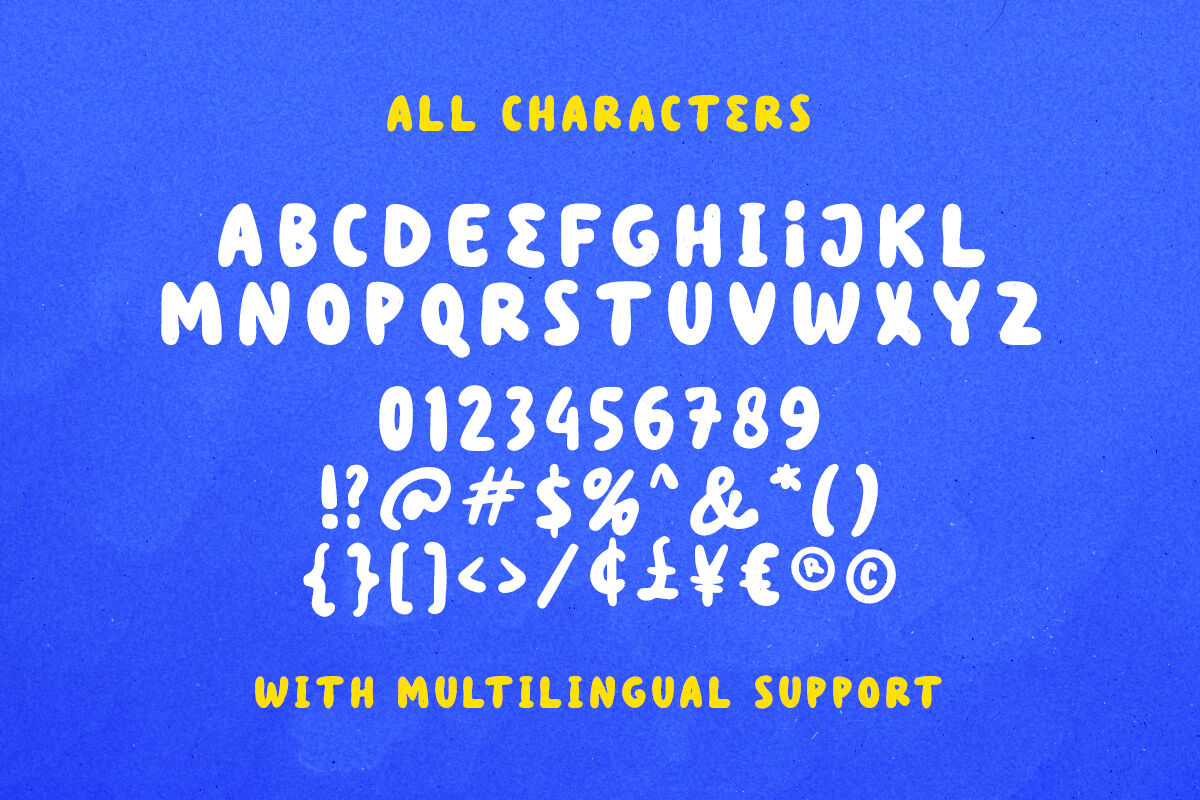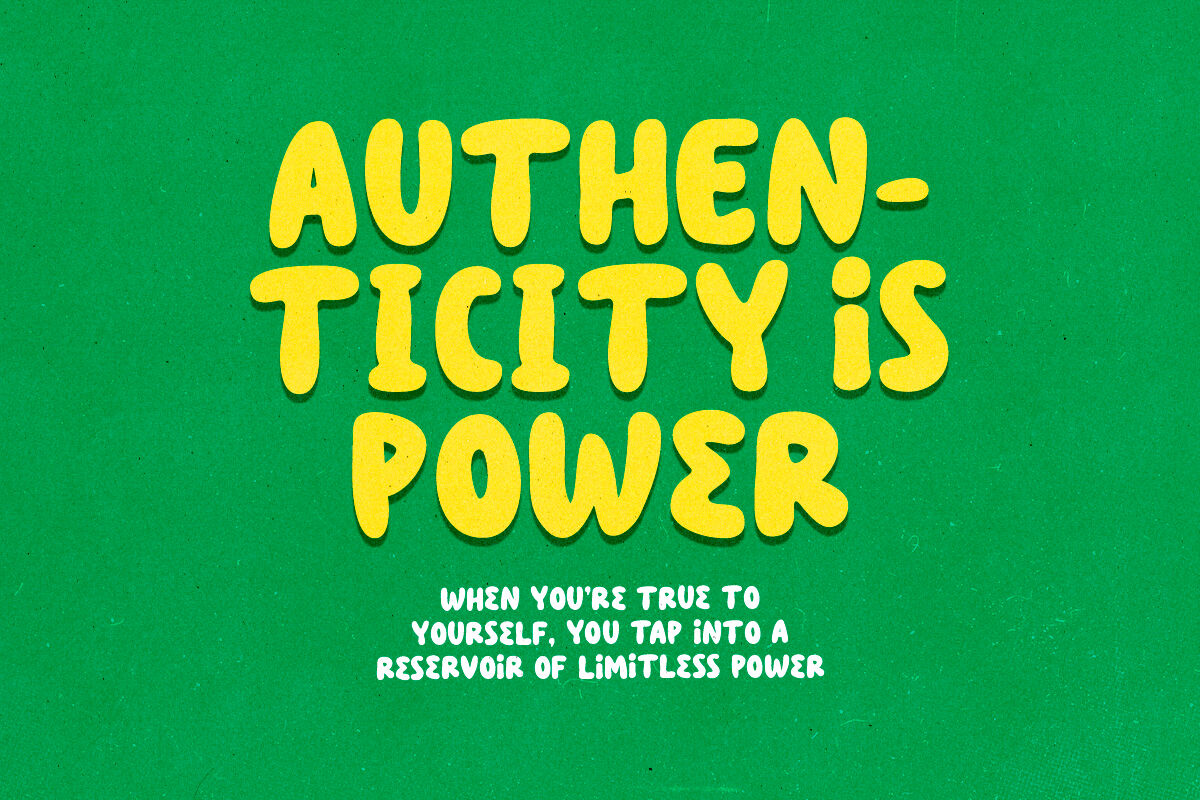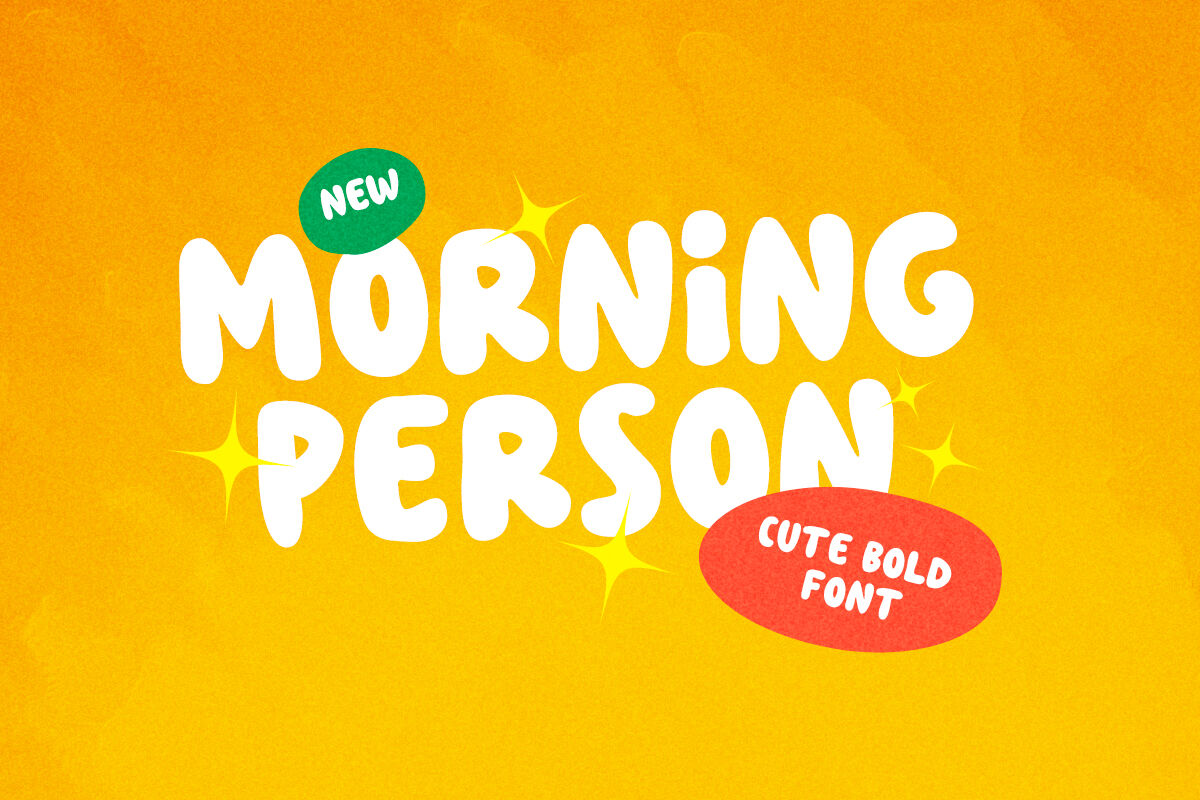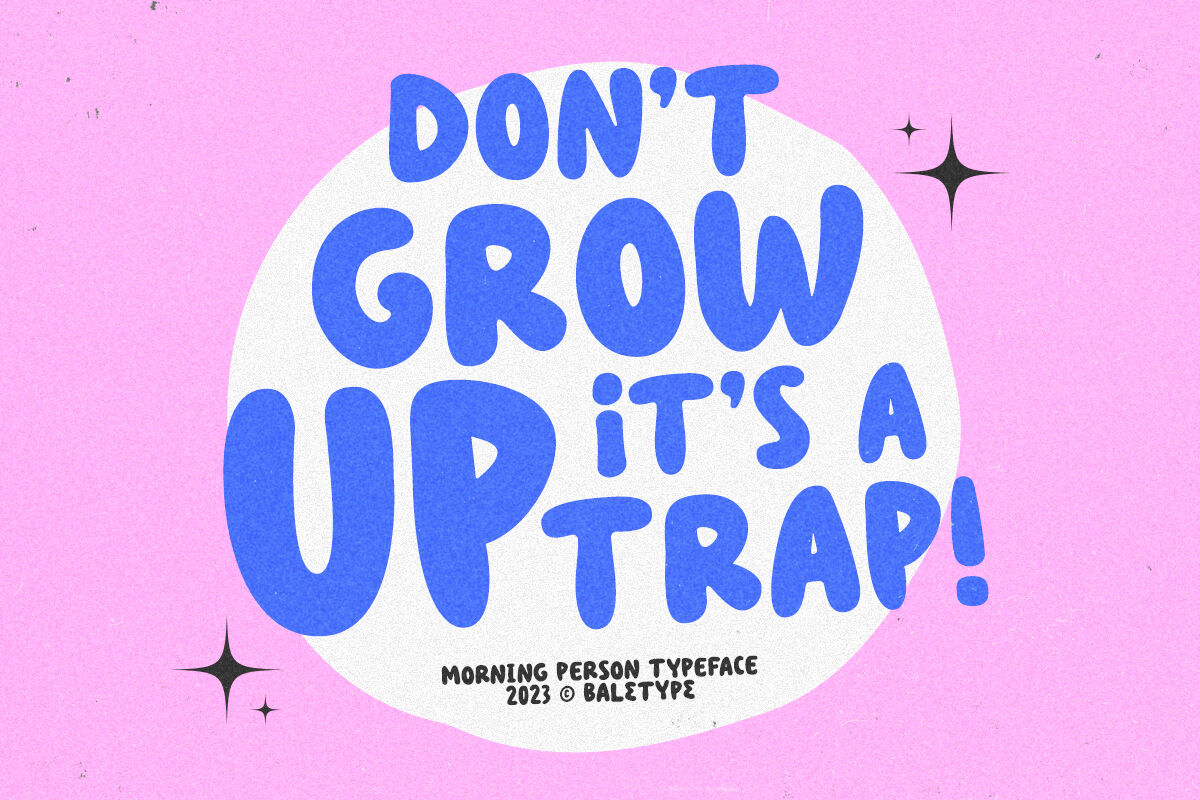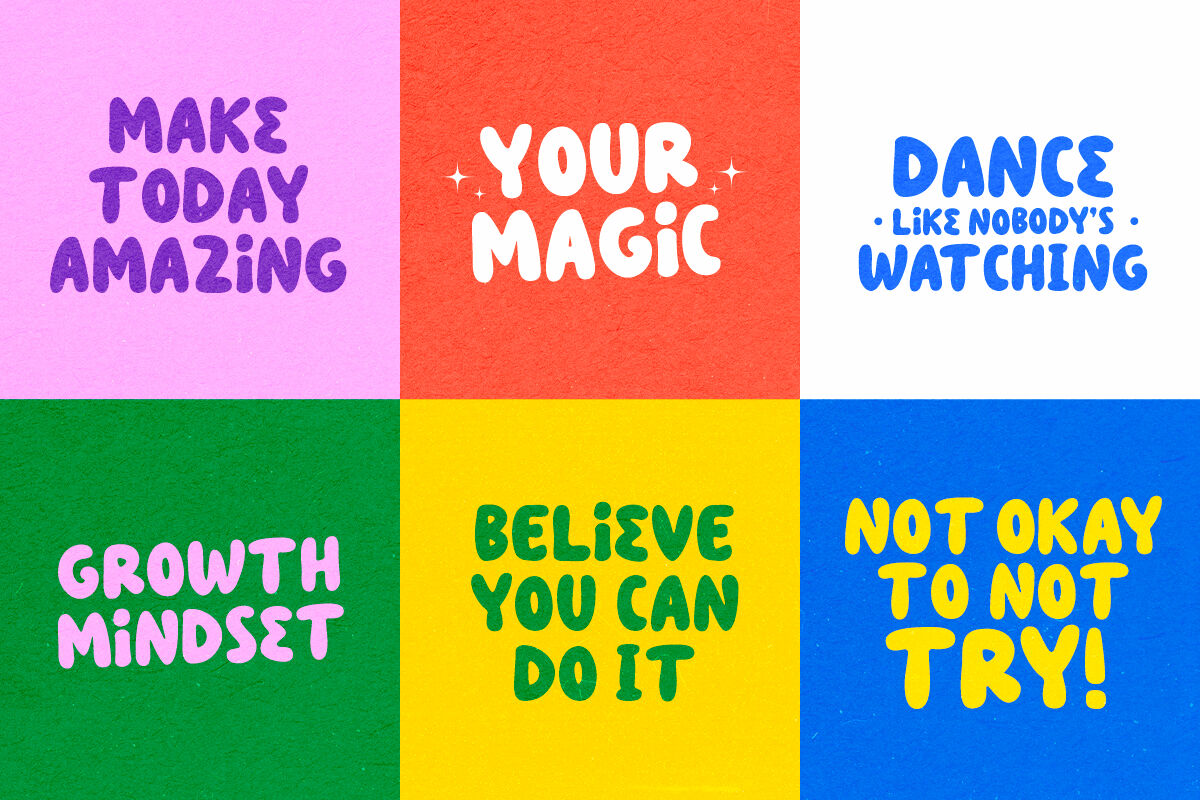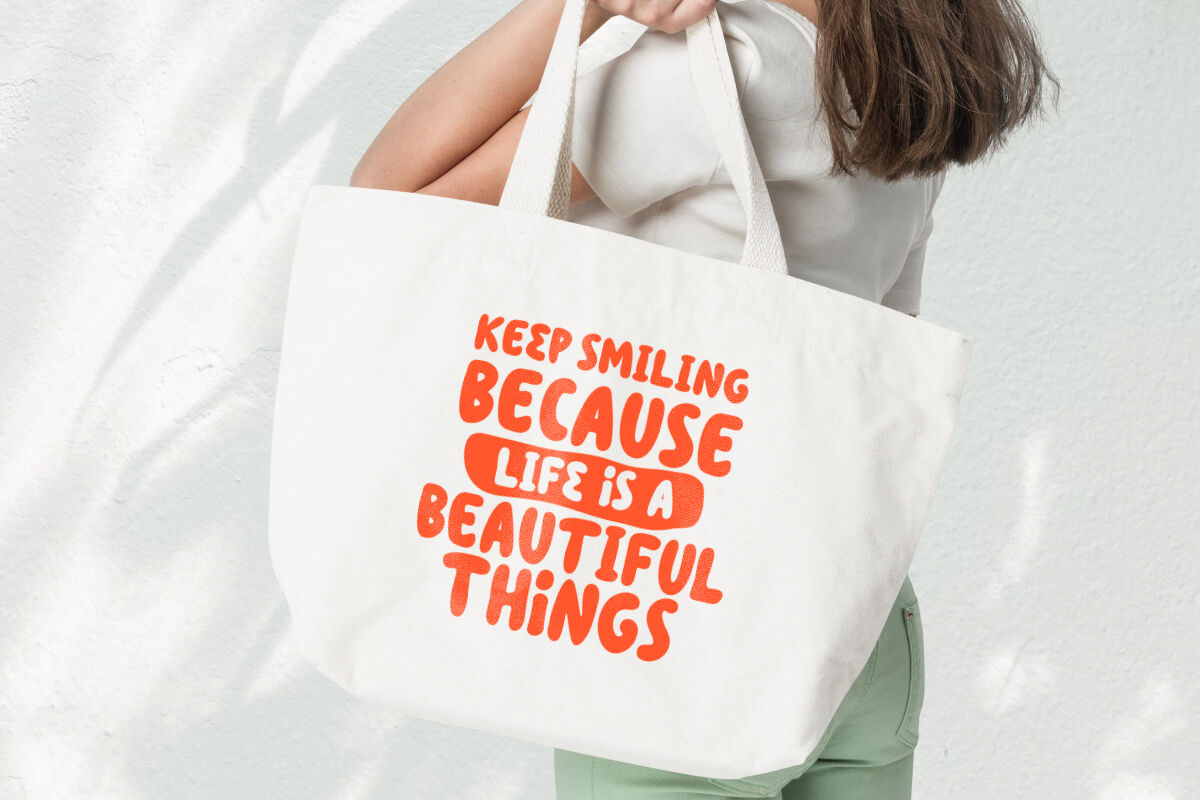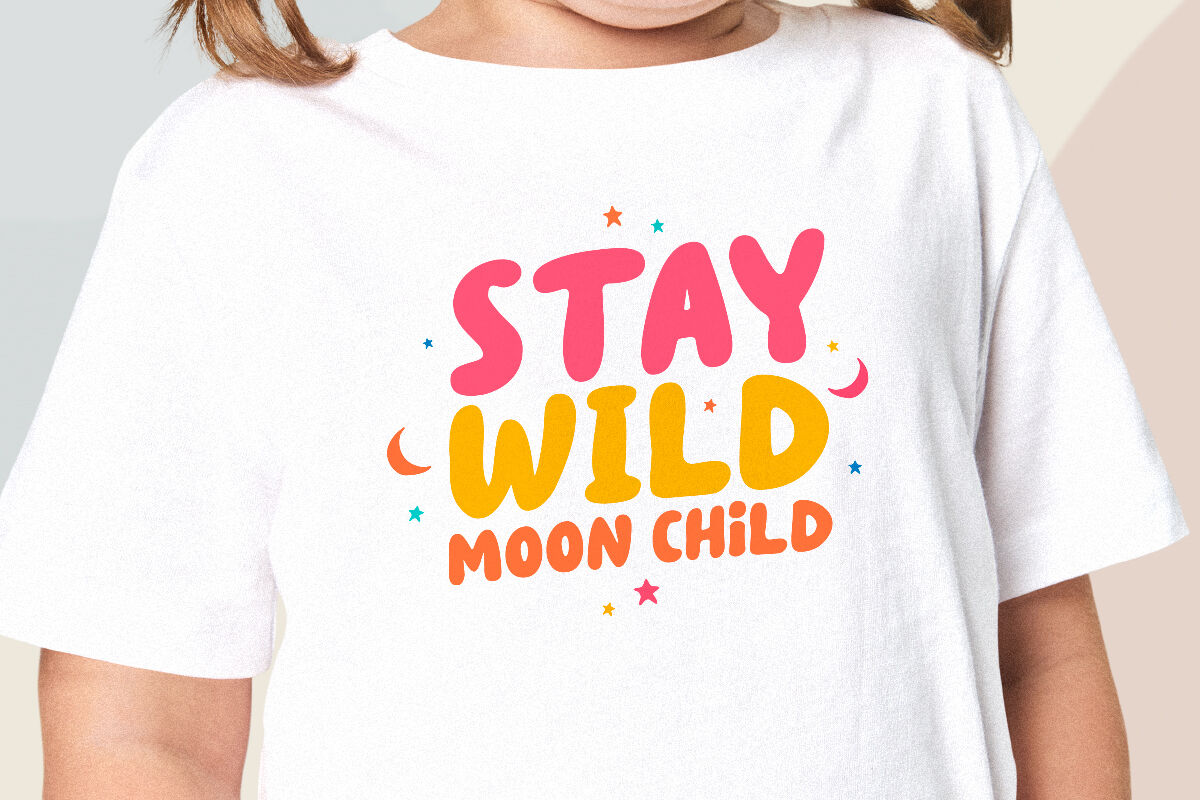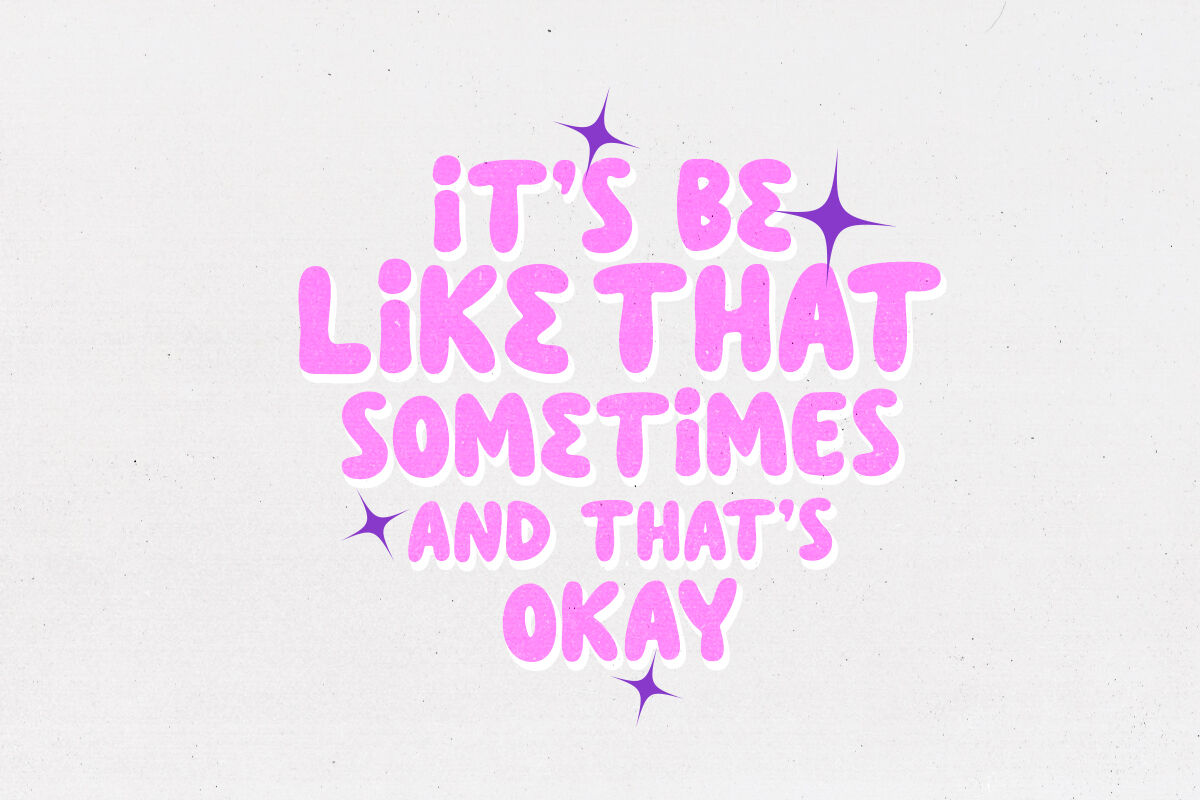
Morning Person - Cute Bold Font
Morning Person is a cute font with bold style. You can use this font fro any purposes especially for kids stuff and brand. This font also great for sticker. Morning Person also support multi language!